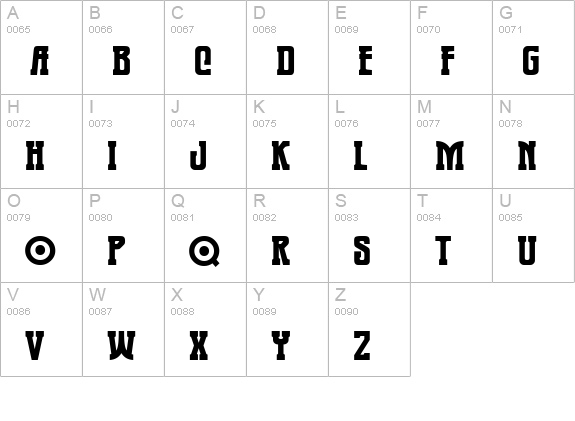
Warmonger BB Font Details
Introducing Warmonger BB, a captivating and powerful font that exudes strength and determination. With its bold and commanding letterforms, this font is perfect for those seeking to make a bold statement in their designs. Warmonger BB is meticulously crafted to convey a sense of authority and intensity, making it ideal for various projects that require a strong and impactful presence. Whether you're designing a striking poster, a powerful logo, or an attention-grabbing headline, Warmonger BB will leave a lasting impression on your audience. What sets Warmonger BB apart is not just its visually striking appearance, but also its versatility. This font can effortlessly adapt to different design styles and themes, seamlessly integrating into your creative vision. From vintage-inspired designs to futuristic concepts, Warmonger BB will elevate your projects to new heights. The best part? Warmonger BB is available for free download at FontsMarket.com. Now, you can unleash your creativity without any financial constraints. This font empowers designers and creatives to freely explore their imagination and bring their visions to life. So why wait? Download Warmonger BB today and add a touch of strength and impact to your designs. With its bold presence and freely accessible availability, Warmonger BB is the perfect choice for those who want to make a lasting impression.